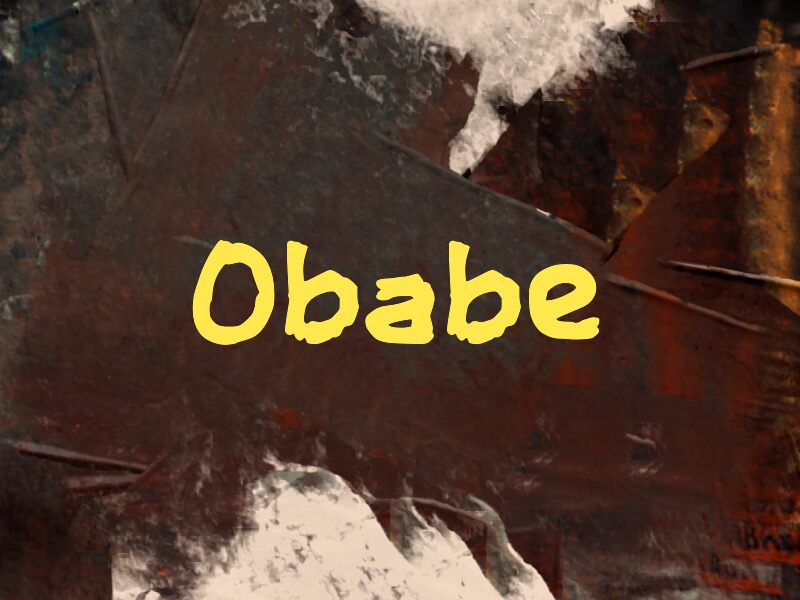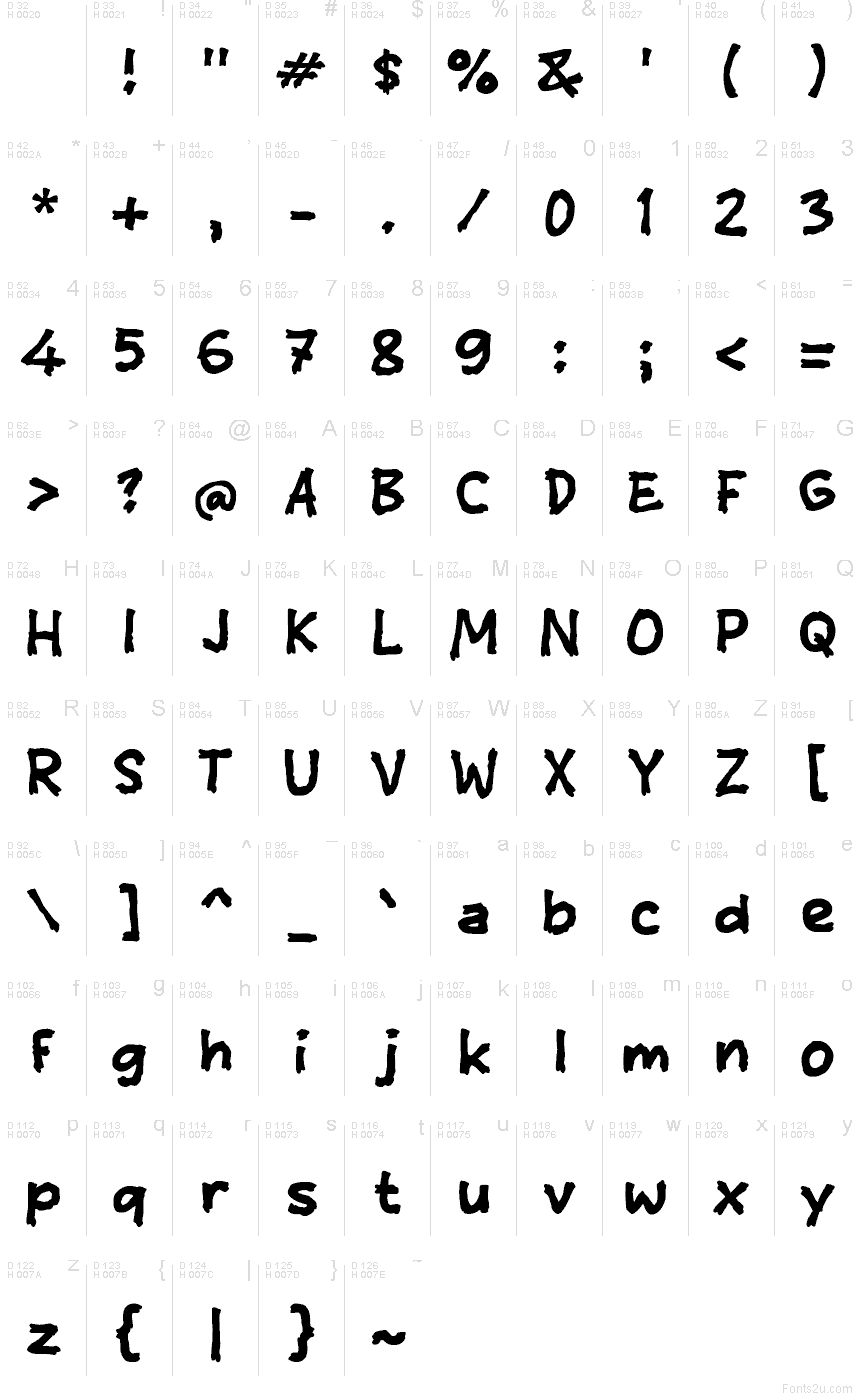
Obabe
Obabe font by wepfont.com is a free brush font that looks like it’s been painted in thick, inky strokes and left to dry on rough paper. The letters are bold, rounded, and just a little uneven, giving every word a hand-done, slightly mischievous energy. There’s a sense of weight and softness at the same time, as if each stroke was pushed with a loaded marker that bled ever so slightly at the edges.
Using Obabe, your titles instantly feel louder, friendlier, and more human—great for kids’ projects, posters, stickers, quirky branding, social graphics, event flyers, and handmade product packaging. This free font thrives at larger sizes where its chunky texture really shows, and it pairs easily with a clean geometric sans for small body text that doesn’t compete.